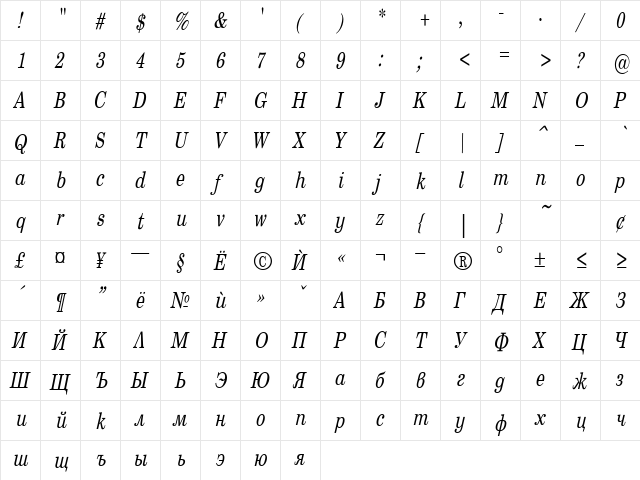
SentryCond Italic Font Preview
Design Context for SentryCond Typeface
SentryCond takes a measured approach to typography — its balanced proportions and neutral character make it a reliable workhorse for both digital and print work. Its italic angle brings a sense of urgency and motion to the letterforms. The condensed width makes it efficient for tight spaces without sacrificing legibility.
Pro Tip: Try SentryCond for annotation and caption copy alongside an upright companion — the contrast in angle creates a dynamic but ordered typographic system.